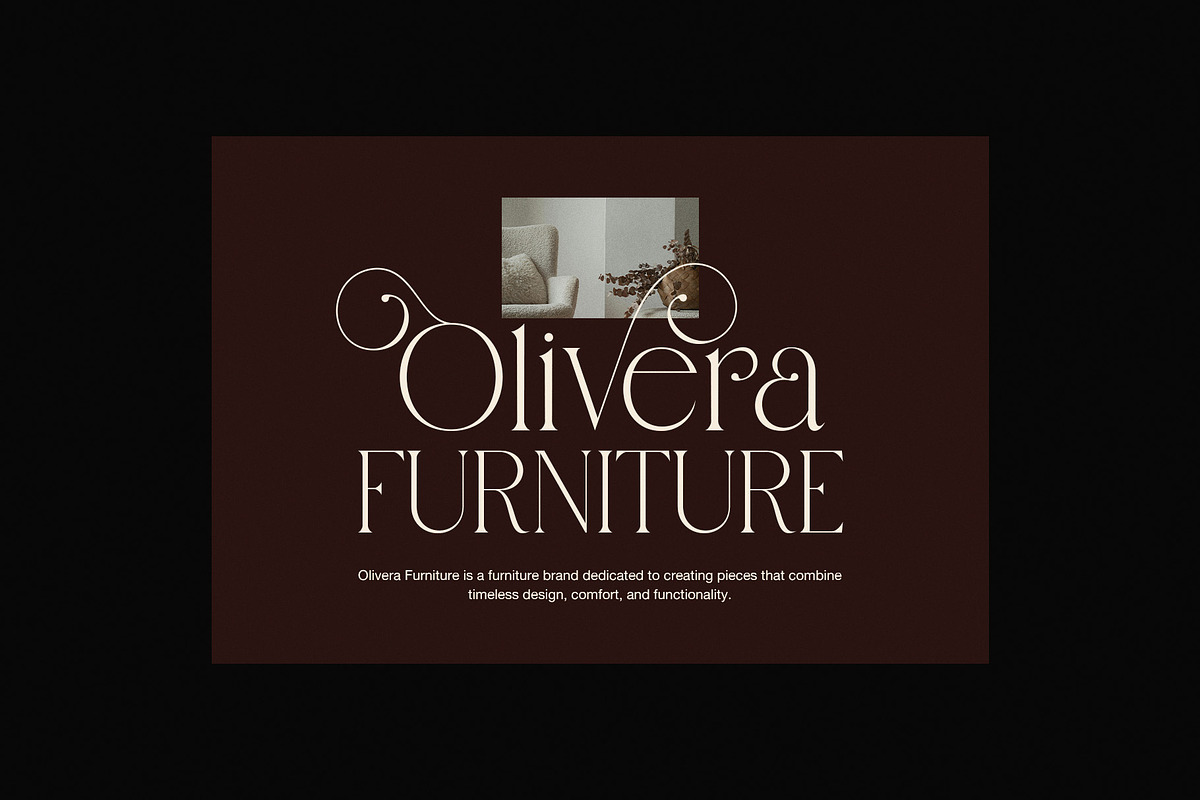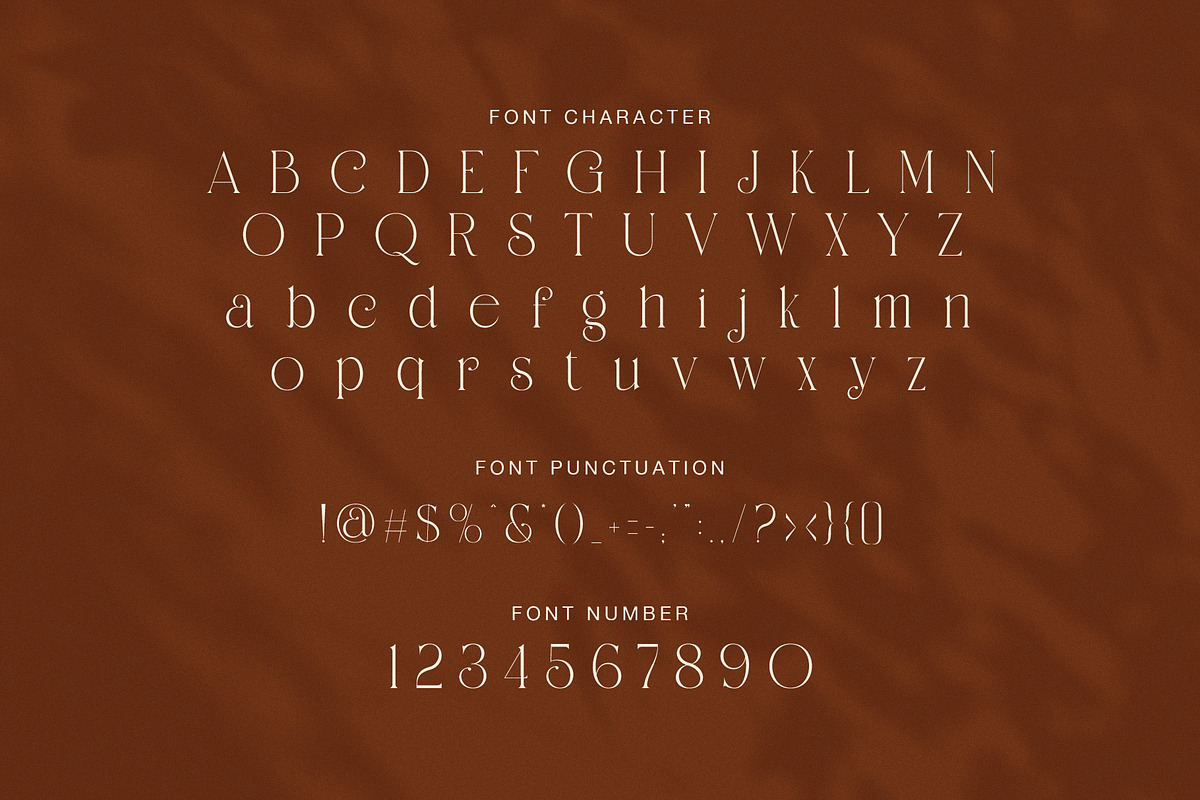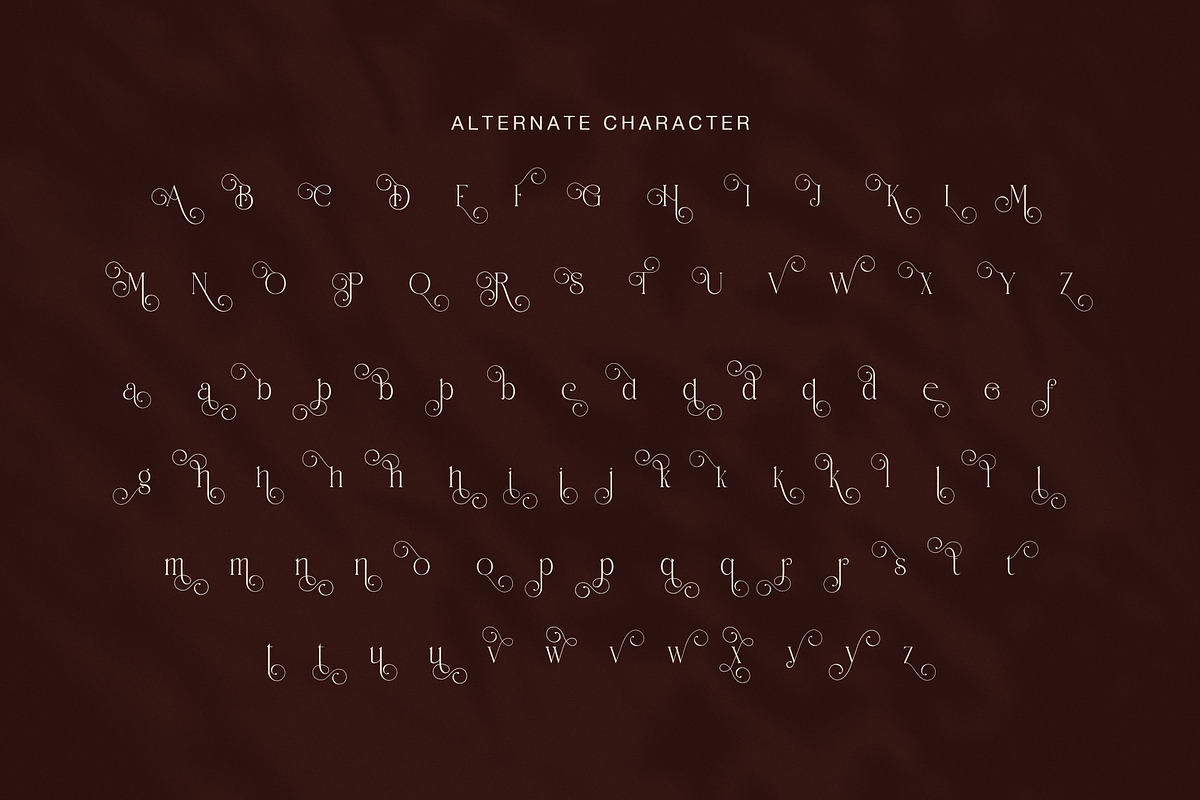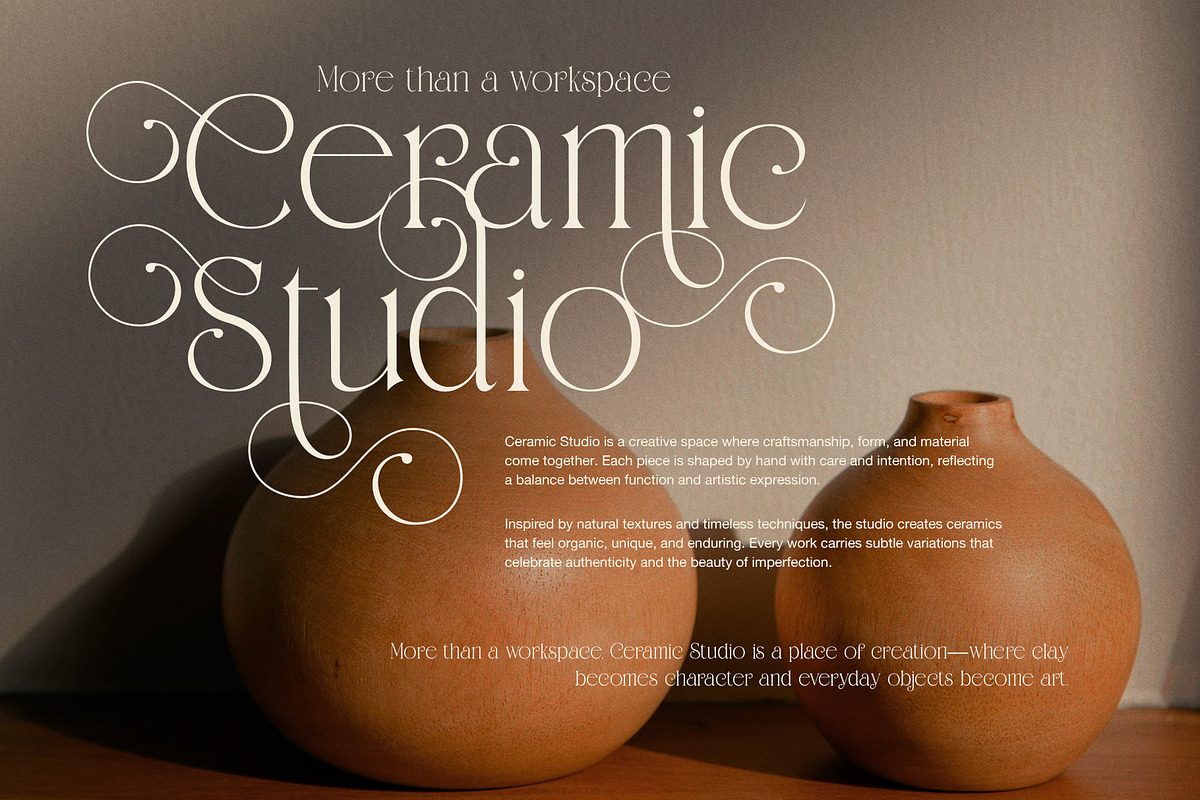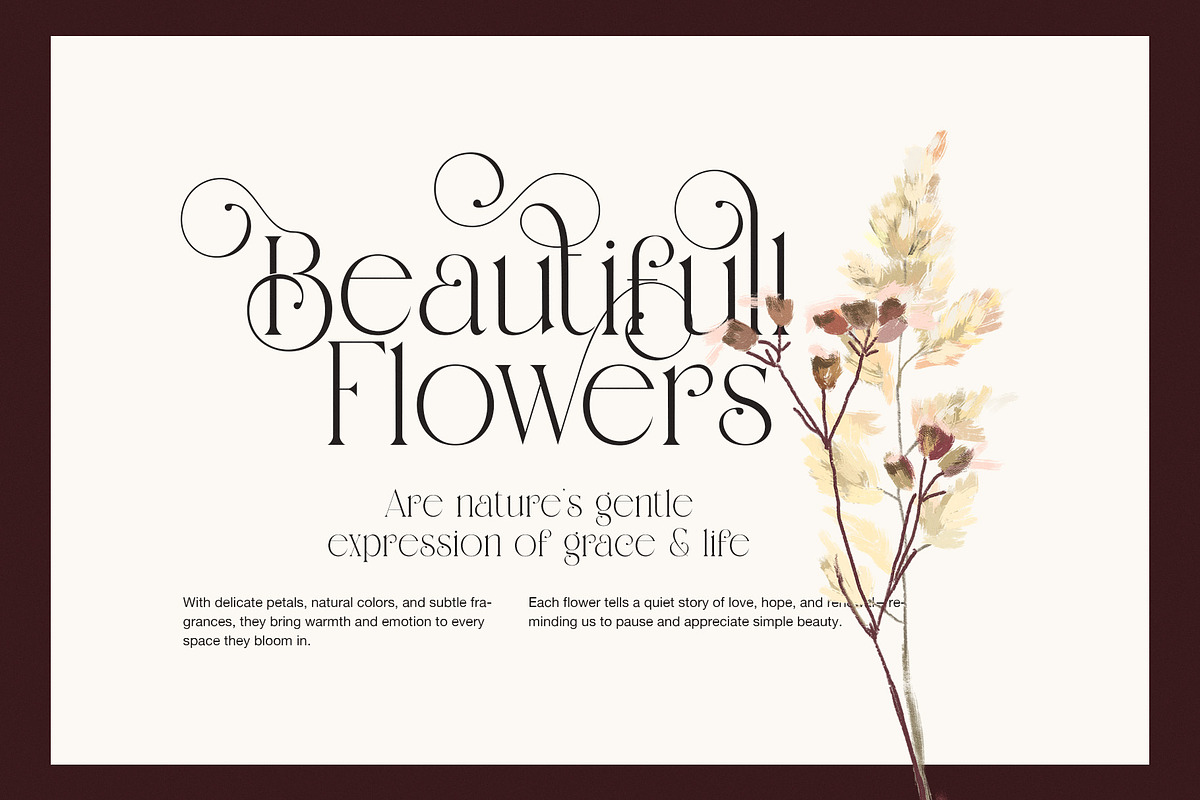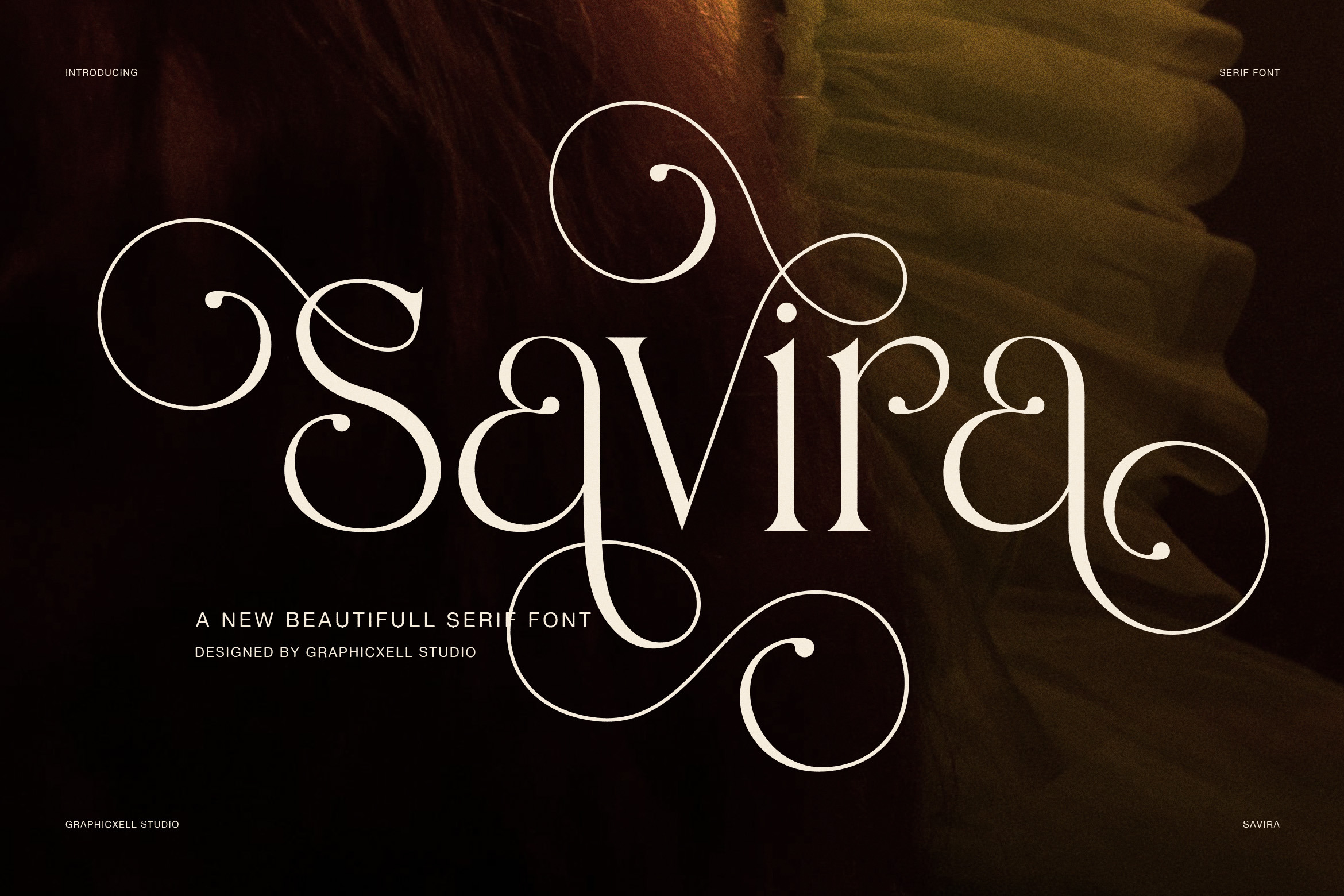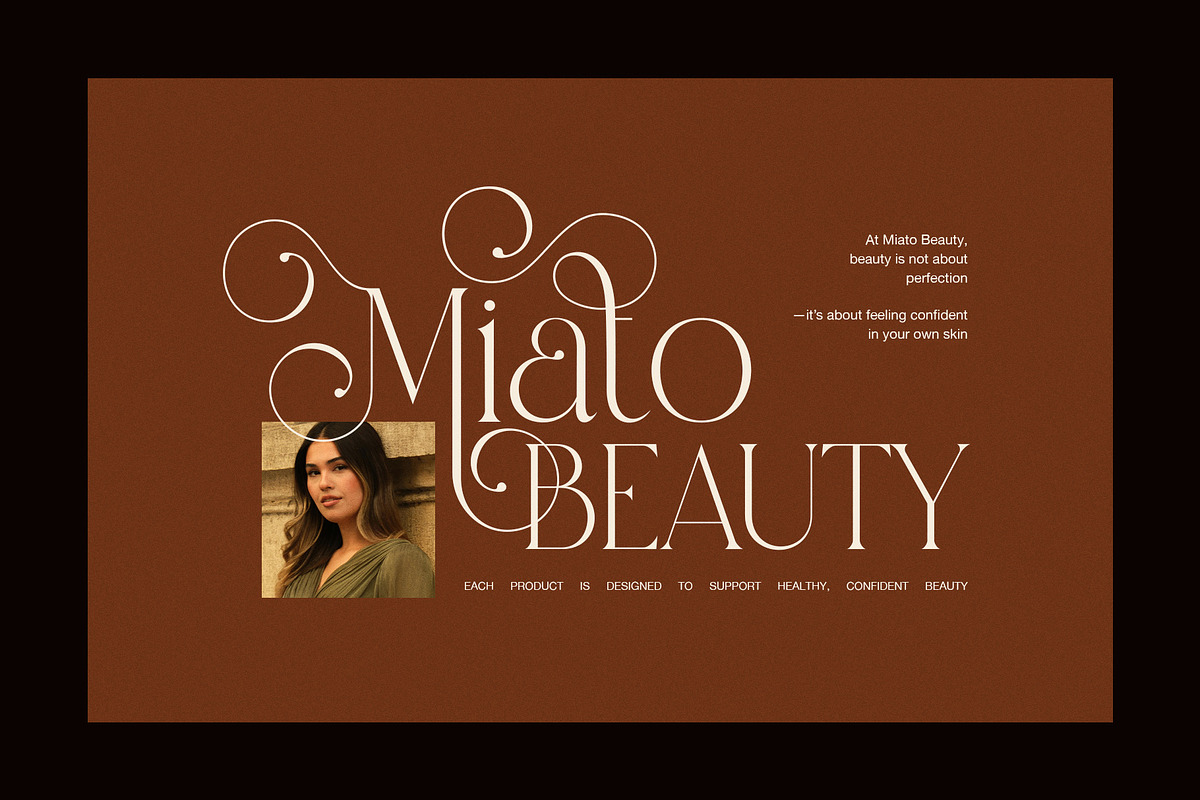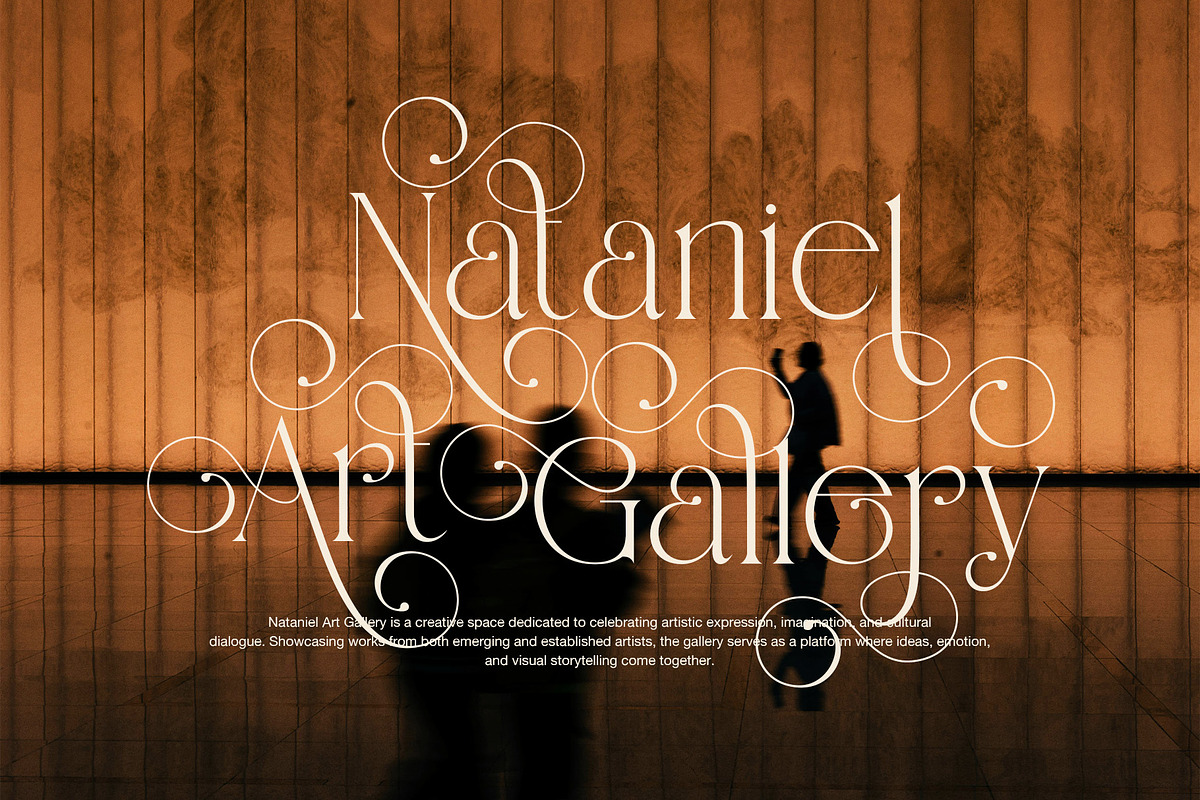
Savira Elegant Serif Font
Elegant Serif Font with Swashes for Luxury Design
Savira is an elegant serif font that brings drama, grace, and refined beauty to modern design. Moreover, it blends classic serif structure with flowing calligraphic swashes, so each word feels expressive and artistic. Because of this strong contrast, designers can create eye-catching headlines and stylish brand identities with ease.
In addition, Savira includes rich alternate characters that add motion and charm to lettering. Therefore, logos, posters, and titles feel more personal and handcrafted. At the same time, the base letterforms remain clean and balanced, which keeps text clear and readable in many layouts. As a result, the font works well for both bold display text and short supporting copy.
Furthermore, Savira suits many premium design fields. For example, it fits beauty branding, fashion campaigns, art galleries, and creative studios. It also performs beautifully for hotel identities, restaurant branding, wedding designs, and lifestyle packaging. Since the swashes flow naturally, layouts feel elegant without becoming busy or heavy.
Why designers choose Savira
This serif font offers strong visual impact while keeping elegant rhythm. Also, it helps brands look confident and artistic at the same time.
Main features and benefits:
Elegant serif letterforms with flowing swashes
Rich alternates for expressive typography
Smooth ligatures for natural word flow
High contrast for luxury headlines
Clean structure for good readability
Strong uppercase for branding and logos
Stylish lowercase for creative layouts
Works well for print and digital design
Moreover, Savira helps designers build emotional connection through typography. Instead of plain shapes, it delivers graceful movement and artistic detail. Because of that, designs feel premium, memorable, and full of character.
Finally, if you need a serif font that feels bold, elegant, and expressive, Savira offers the perfect balance. It supports creative ideas, improves visual quality, and strengthens brand identity across many platforms.